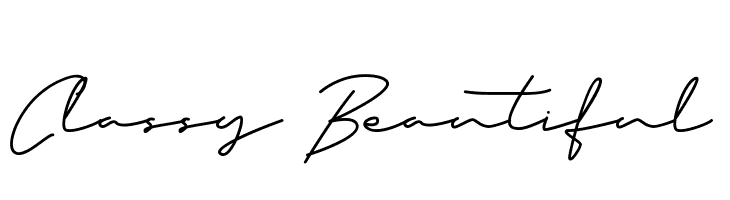
A bold, 3D italic font with a modern, geometric style.
A playful, bold font with rounded characters and dotted accents.
A sophisticated and elegant script font with fluid, flowing letterforms.
A minimalist, extra condensed, and thin font with a modern design.
A futuristic, two-tone font with dynamic horizontal stripes and angular shapes.
A bold, expressive handwritten font with dynamic strokes and a lively appearance.
A modern, geometric sans-serif font with a clean and minimalistic design.
A futuristic, italic font with a halftone effect and bold, angular lines.
A geometric, pixelated font with a digital, futuristic style.
A bold, decorative font with a modern, three-dimensional style.
A whimsical script font with decorative loops and curls.
A playful, bold font with curvy and dynamic letterforms.
A playful, bold font with a shadow effect and rounded, bubble-like characters.
A classic serif typeface with semi-bold weight, offering elegance and readability.
A graceful script font with fluid, connected strokes and elegant style.
A whimsical and elegant font with flowing strokes and a playful style.
A bold, decorative font with a tattoo-inspired, nautical aesthetic and italic slant.
A bold, italicized font with a halftone effect, perfect for dynamic and edgy designs.
A dot matrix style font with a modern, digital aesthetic.
A bold, playful handwritten font with a dynamic and energetic style.
A playful, handwritten font with a casual and dynamic style.
A playful, bold outline font with rounded, bubbly characters.
A bold, textured italic font with a modern, edgy style.
An elegant and flowing script font with decorative loops and swirls.
A bold, italicized outline font with a futuristic and dynamic style.
A bold, playful handwritten font with rounded, consistent strokes.
A graceful, cursive script font with a natural handwriting style.
A lively and expressive handwritten font with fluid strokes and a playful elegance.
A sleek, modern italic font with a dynamic and streamlined design.
An elegant script font with flowing swashes and delicate curves.
A tall, narrow, hand-drawn font with an organic and playful style.
A decorative script font with leaf-adorned uppercase letters and elegant cursive lowercase.
A graceful script font with flowing, interconnected letters and elegant flourishes.
A lively and expressive script font with bold, flowing letterforms.
A bold, distressed font with jagged edges and a hand-drawn style.